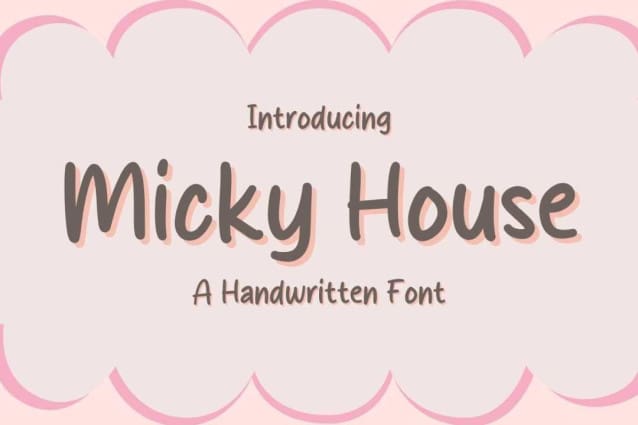
Micky House Font
Micky House Font is a classic and simple handwritten script, created in a random and free style. It is suitable for logotype, headline font, in corporate identity, brand identity, apparel industry, poster, music, movie, game, magazine, book, comic, cartoon, YouTube, Instagram, website, or any of your creative design projects.